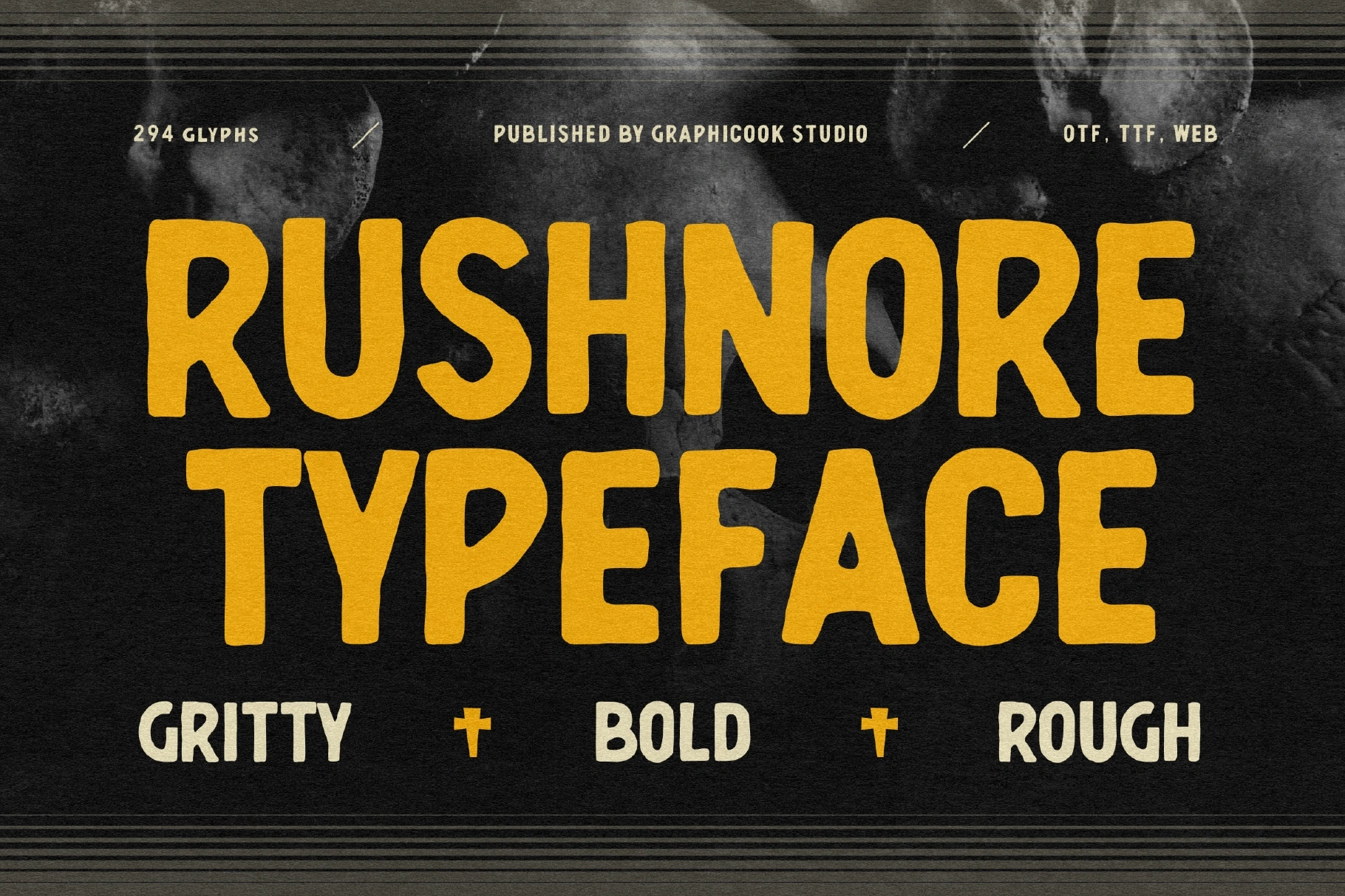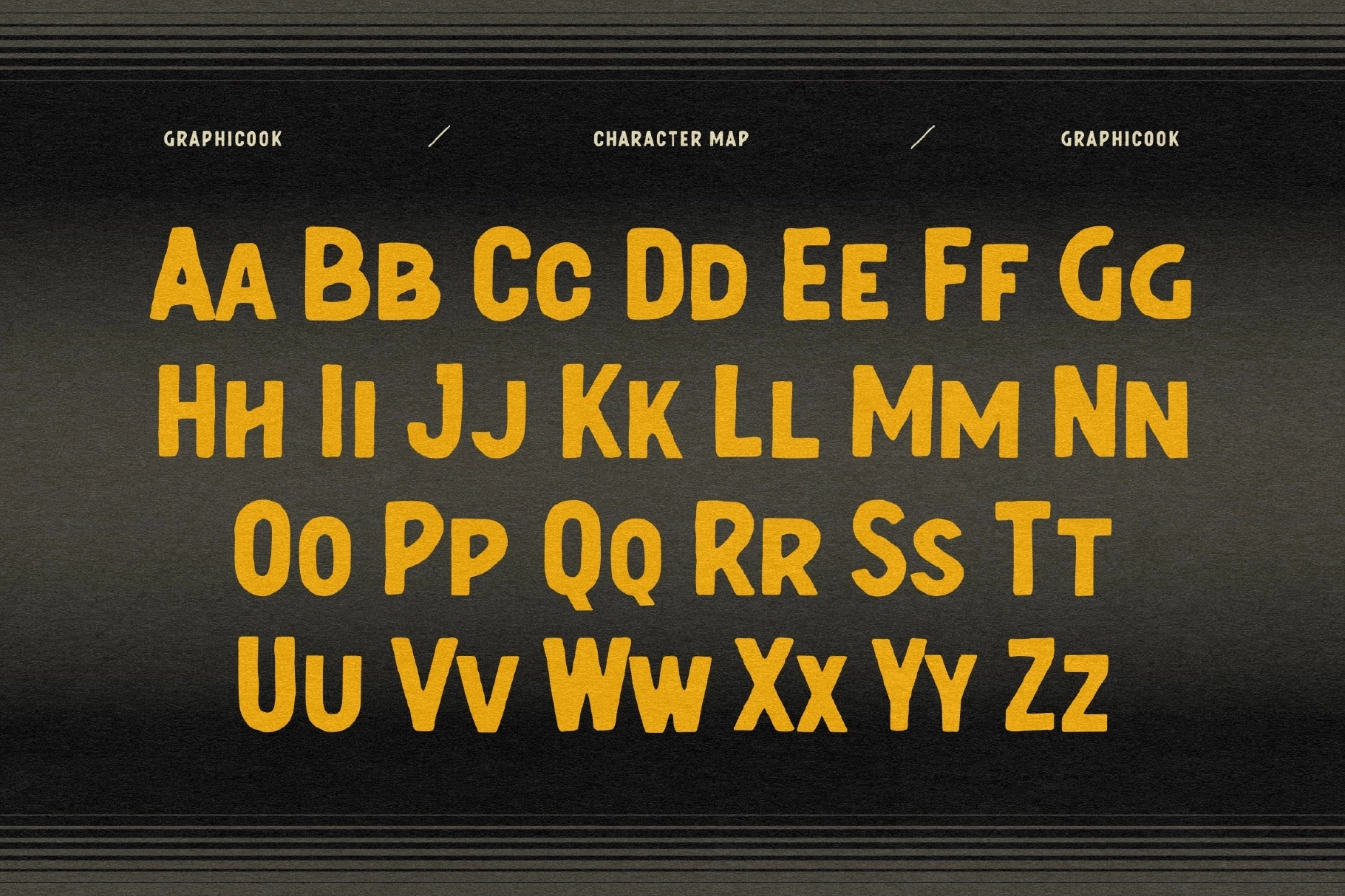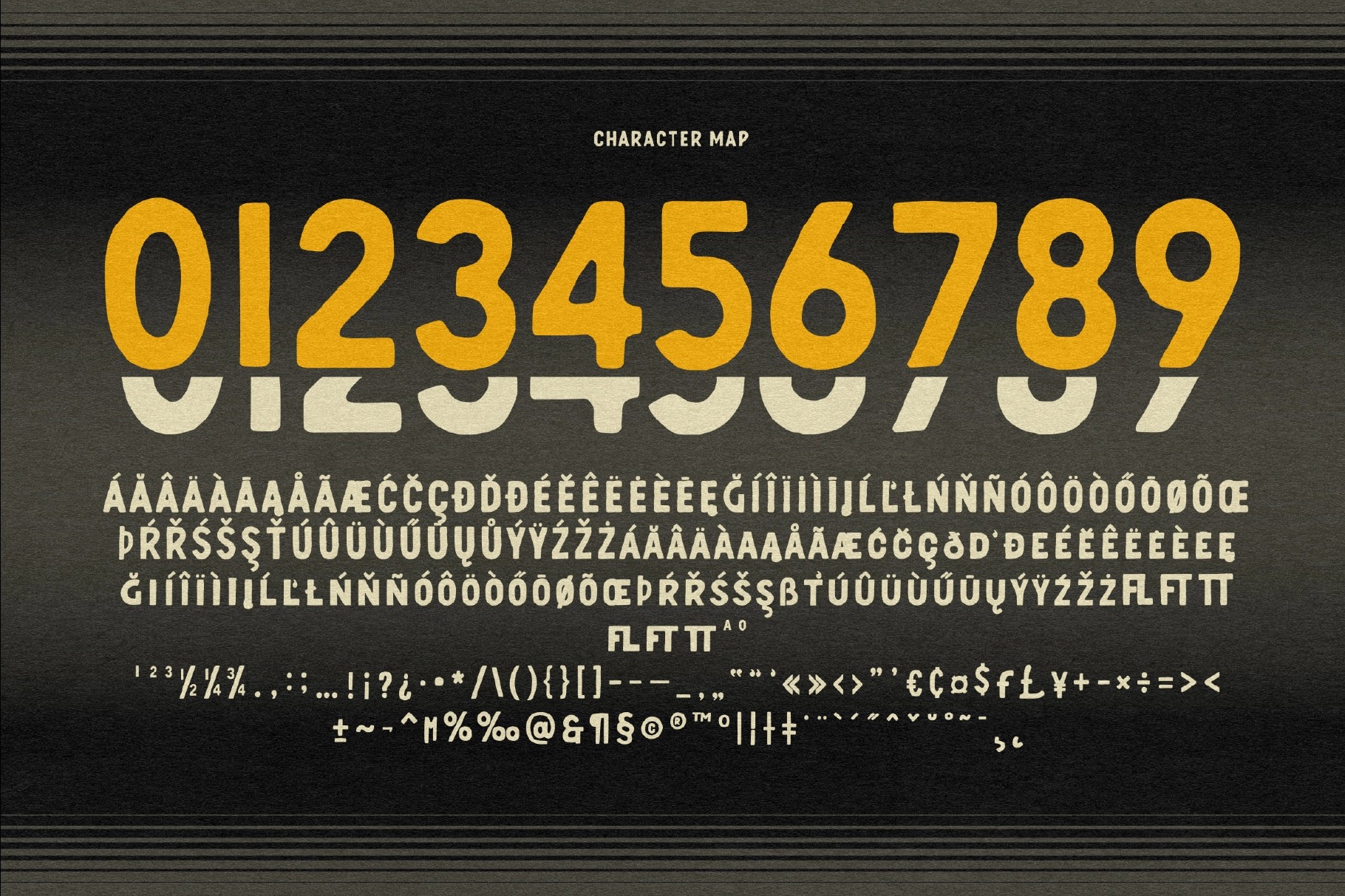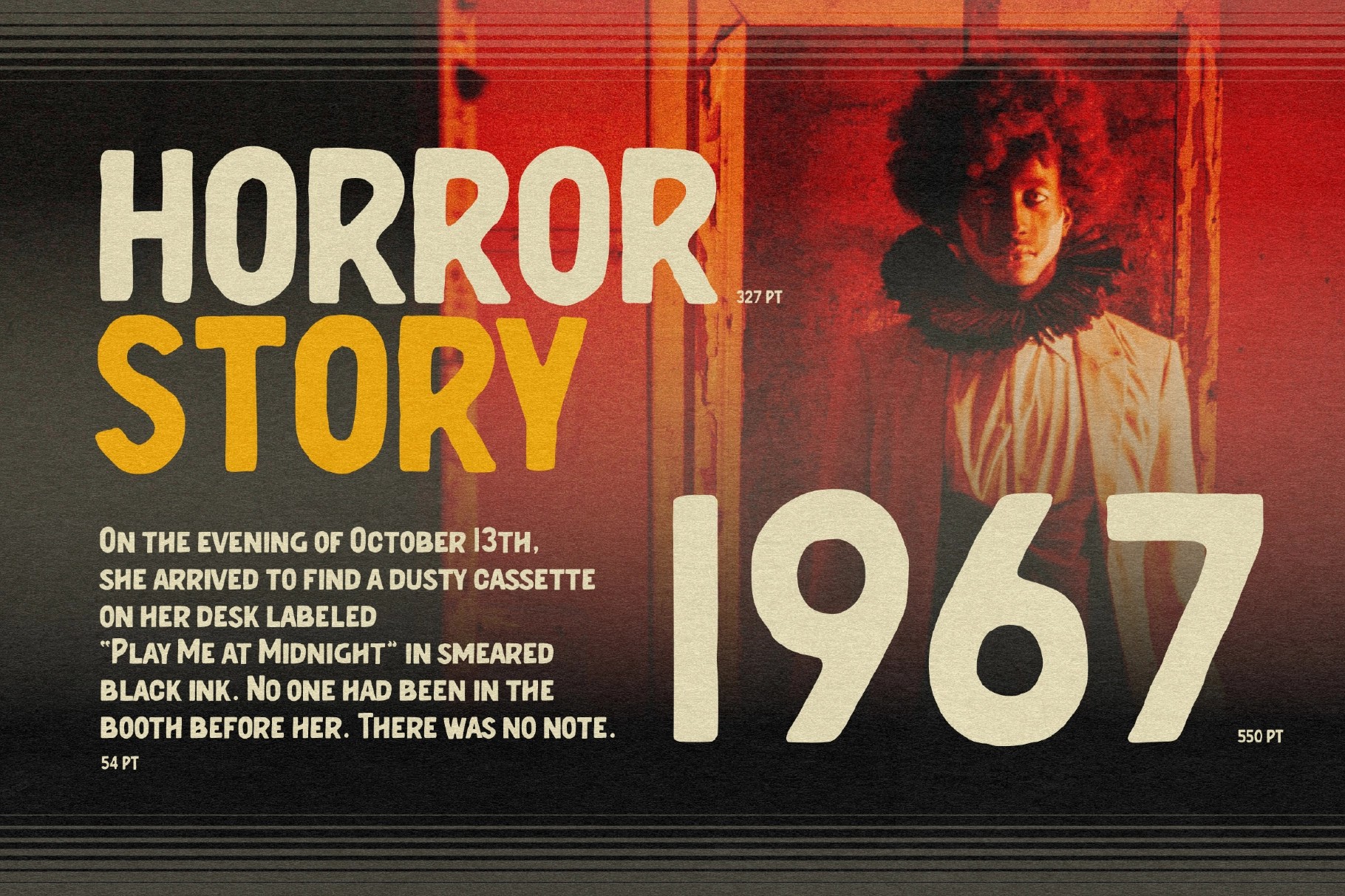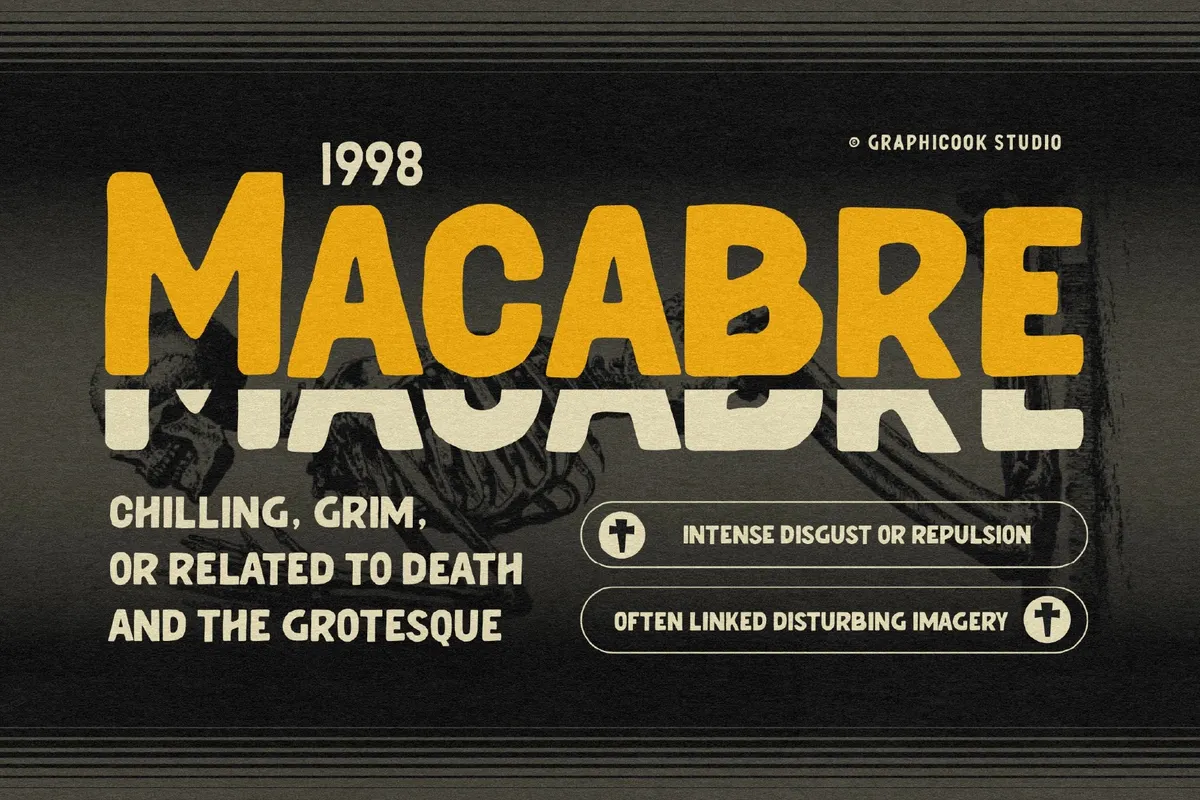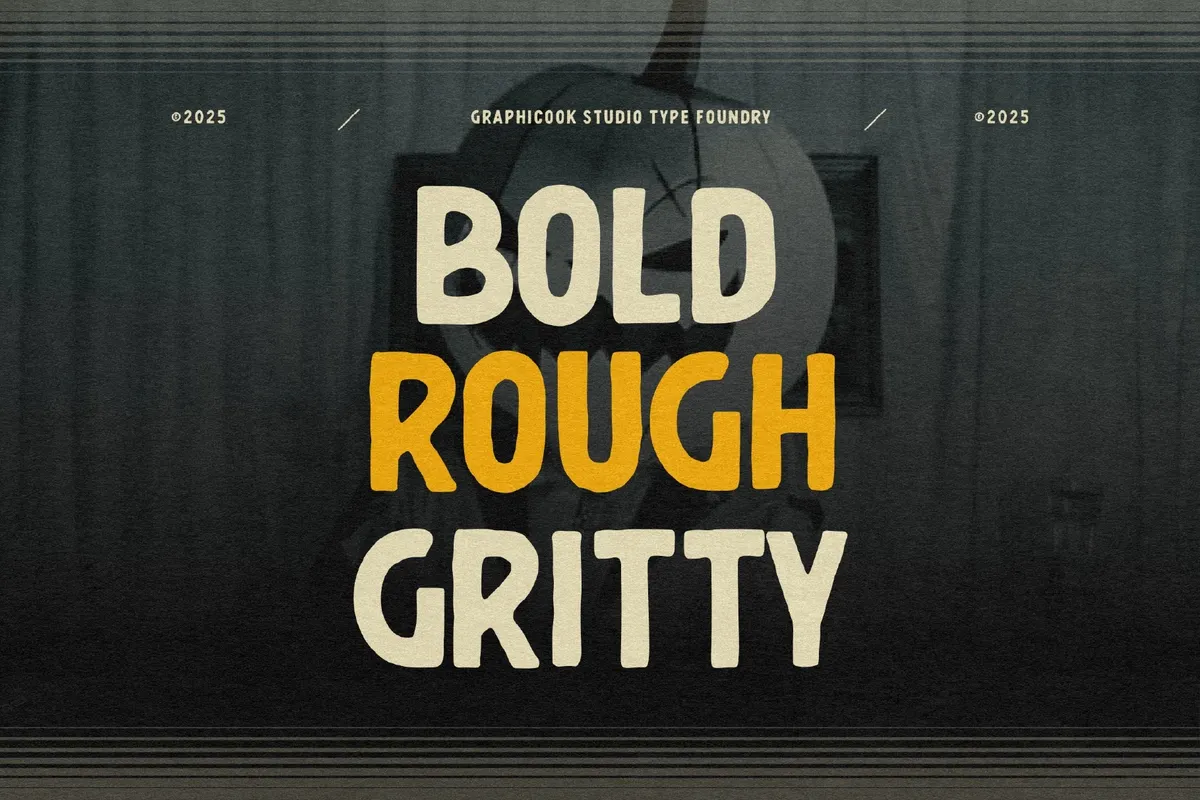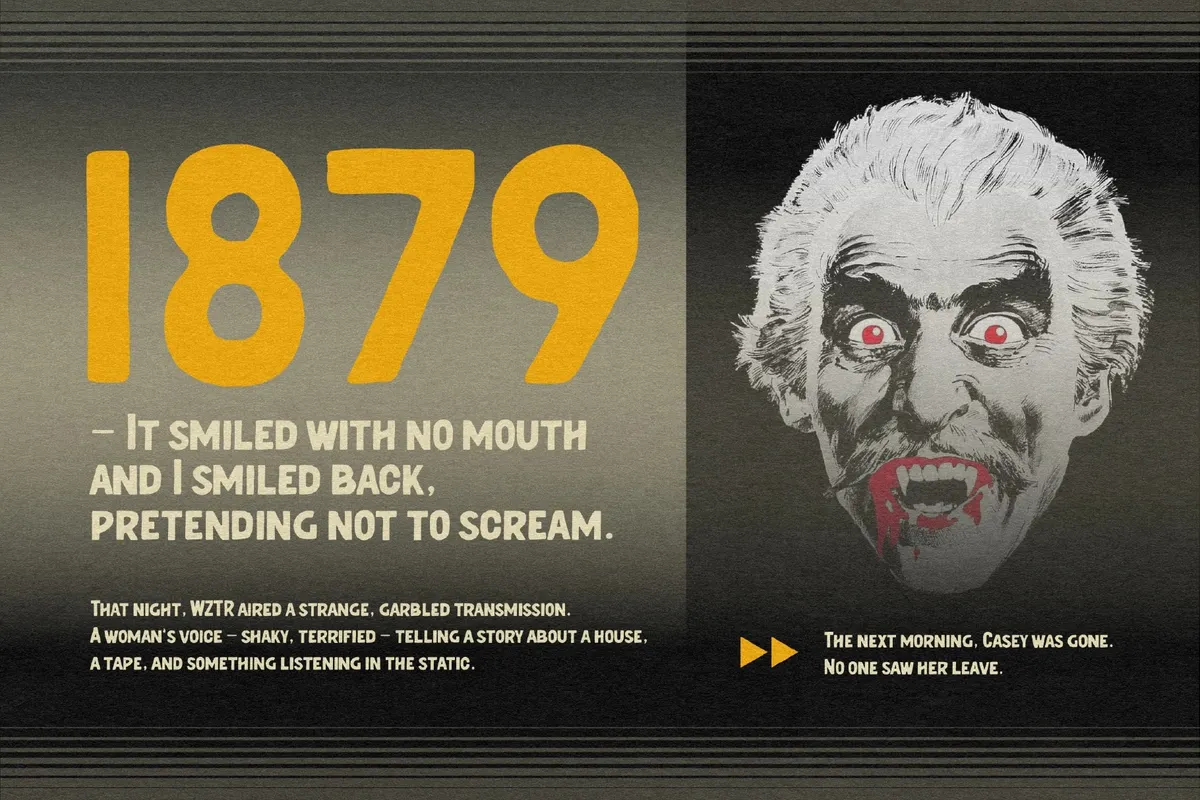
Rushnore Old Horror Movie Font
Rushnore
Rushnore is a bold, distressed display typeface with a messy, hand-worn texture that feels raw, loud, and unapologetically expressive. Designed to look imperfect on purpose, it delivers that gritty “printed on old paper” vibe—ideal for posters, covers, and graphics that need instant attitude.
If you’re searching for an old horror movie font, Rushnore nails the classic vintage-slasher mood while staying highly readable. Use it as a Halloween font for spooky invitations, party flyers, and seasonal merch, or as a punchy horror font for retro movie titles , album art, packaging, and edgy branding.